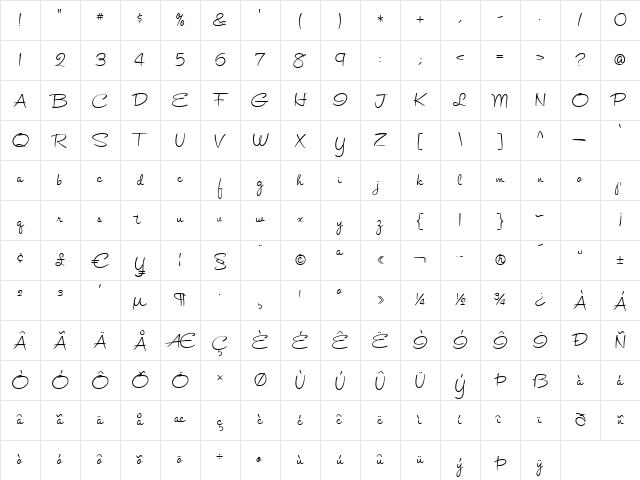
Complete Refreshment Stand Regular glyph index. Displaying only characters natively supported by Refreshment Stand Regular font.
Refreshment Stand is a composed and adaptable typeface that performs quietly and consistently across a wide range of design contexts.